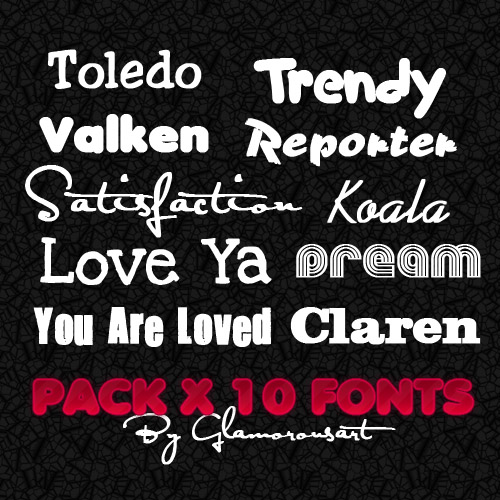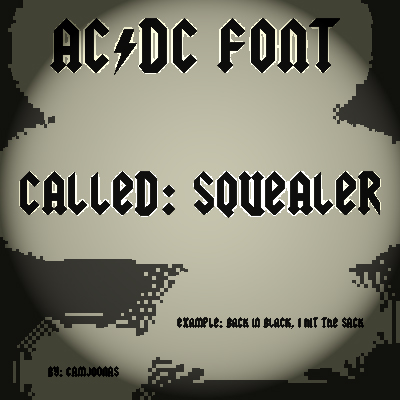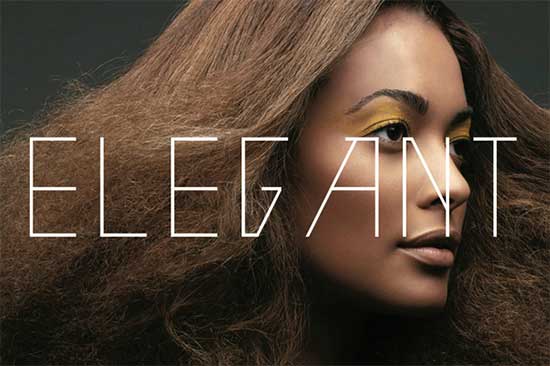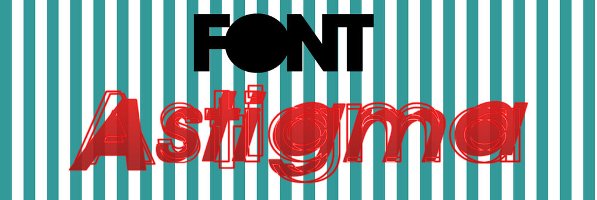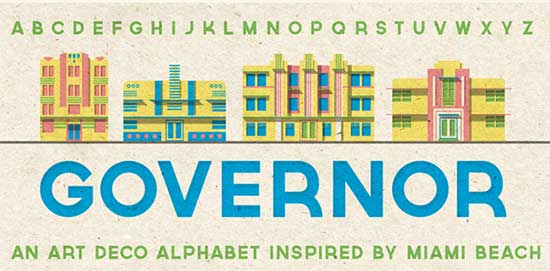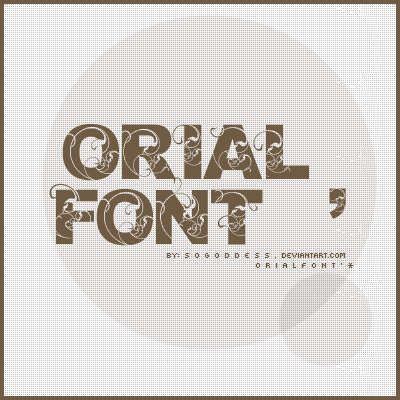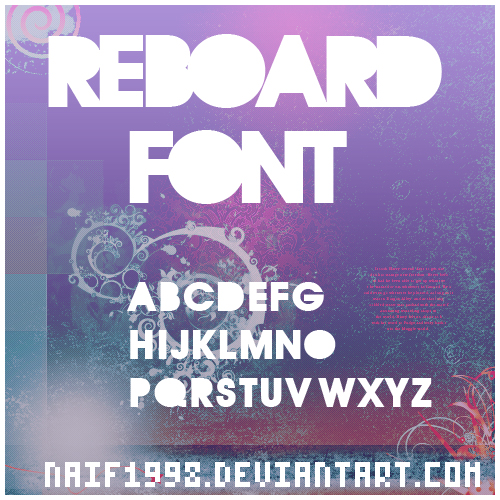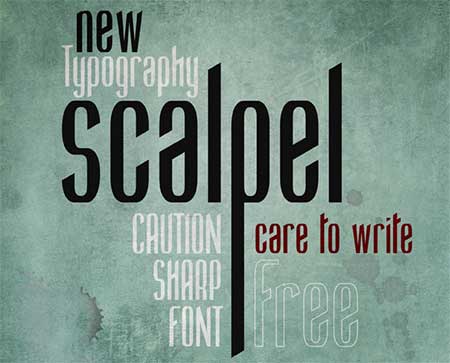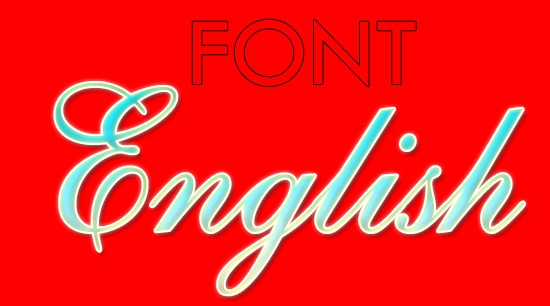
Those free beauty and cool fonts design are useful graphic designer to design text fonts with any kind of creative purpose. Enjoy all free download fonts !!!In this collection, you’ll found 100 free fonts design style available for download to use. There are a lot of type of fonts design style for web designer or graphics designer that it can choosing what style of fonts you want to use, the quintessence of typography and font designs is importance for us. My favorite free fonts script such Gothic fonts, Halloween fonts, wedding fonts, royalty fonts are most popular for very designer
Ribbon royalty free fonts
Ribbon is now a full display face, including Opentype features for an alternate alphabet.
Ranger – royalty free fonts
Eight One
Scalpel Photography free Movie fonts
AvantGarde ALT
Squiggles Ultimate Pack
Fontin Sans Cyrillic
Fontin Sans Cyrillic free fonts designGovernor free calligraphy fonts
Just Fashion fonts
Classic Fonts
font jonas brothers
font reboard
Font Abbey Dawn
Font Astigma
Arvil free Photography fonts
Font STAR and STRIPES
Orial_Font
Gossip Girl Font
ACDC font Called Squealer
321 Impact Font
REBOARD Font
Calligrapher Regular
LampoonBrush2
Unnamed Melody
Caligraf W
Beachman Script
Gelfling SF
Sahara-Normal
New Day Script
Speedline Regular
Kingthings Calligraphica Light
Jerash demo
Civitype FG
Shardee
Gondola SD
A Charming Font Expanded
Francisco Lucas Briosa Regular
CalligraphyFLF
Magik
Black Chancery